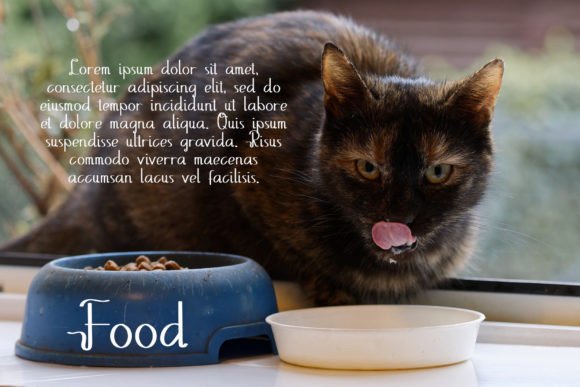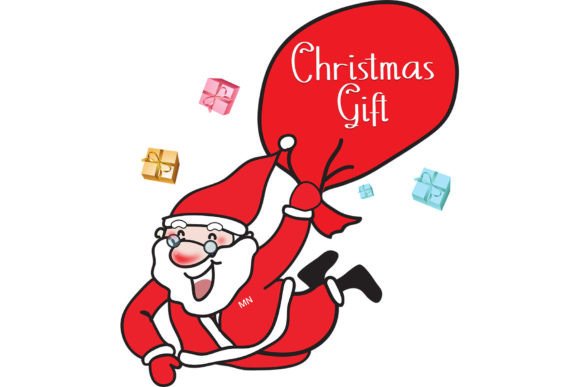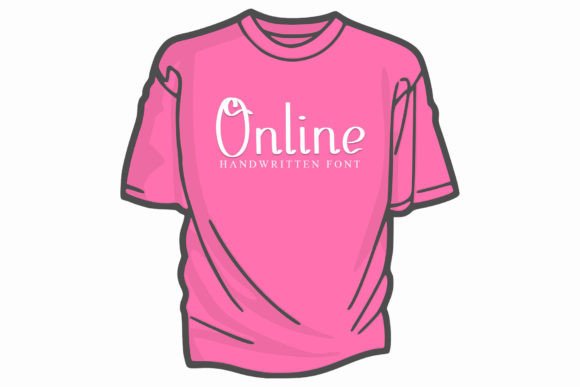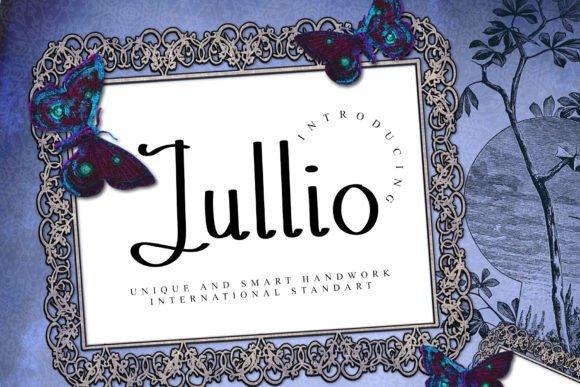
Introduction to Jullio Font
Jullio is a unique and elegant font.
Looks great on wedding invitations, greeting cards, billboards, logos, business cards, and any other design that requires a handwritten touch This font features a varied baseline, created with a natural, hand-made touch.